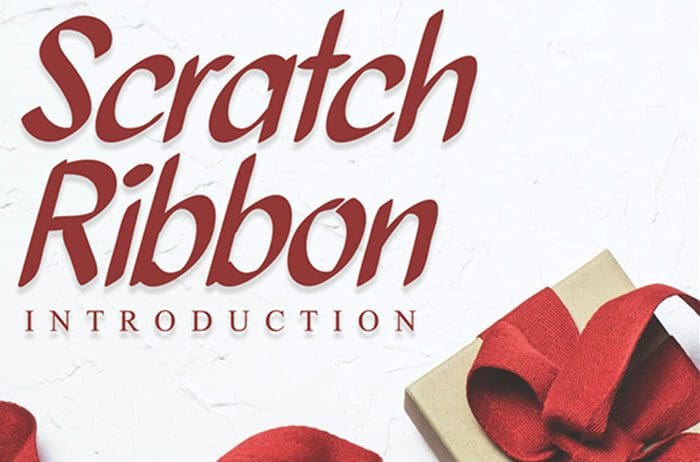
Scratch Ribbon Handwritten Font
Scratch Ribbon is a cute and casual handwritten font with an incredibly friendly feel. Whether you’re looking for fonts for Instagram or calligraphy scripts for DIY projects, this font will turn any creative idea into a true piece of art! Designed this font by Andika Studio. You can also search more free Handwritten Fonts.